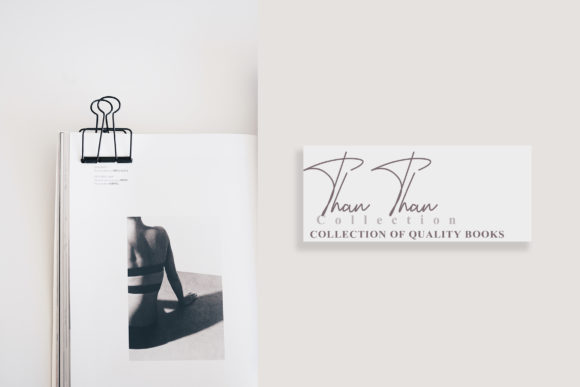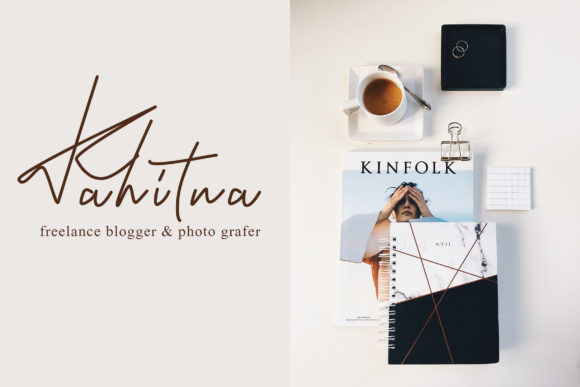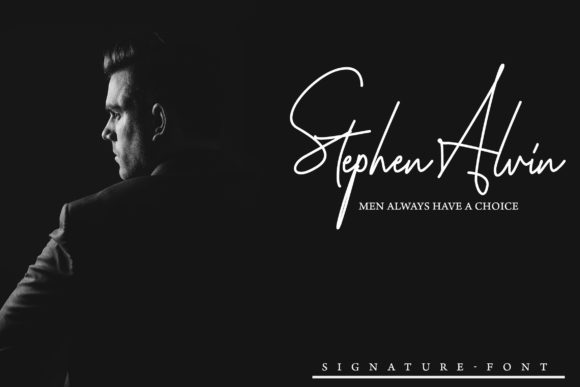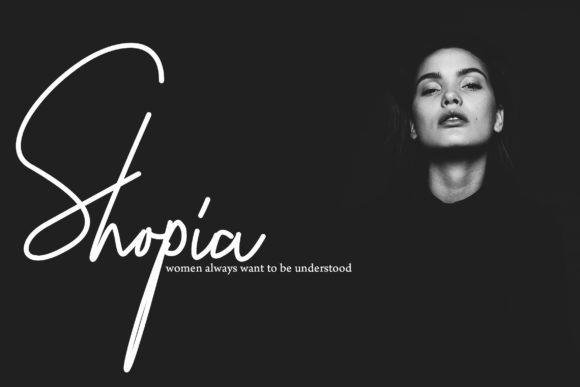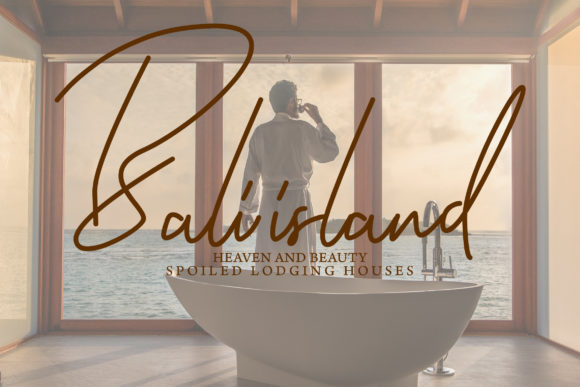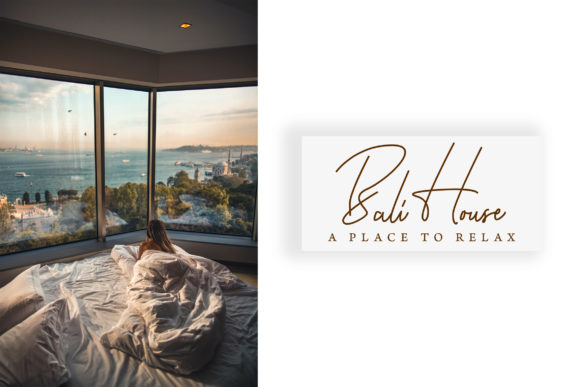
Aambalam Font: The Modern Handwritten Font with a Cool Charm
Are you tired of using the same old fonts in your designs? Look no further than the Aambalam Font, a modern and charming handwritten font that is sure to add a cool charm to your projects. With its 100% handwritten and incredibly cool style, Aambalam is the perfect choice for designers and crafters looking to add a personal touch to their work.
What is Aambalam Font?
Aambalam Font is a unique and stylish handwritten font that is designed to bring a touch of personality to your designs. With its modern and charming style, Aambalam is perfect for a wide range of projects, from branding and advertising to packaging and digital media. Whether you’re a professional designer or a crafty DIY enthusiast, Aambalam Font is sure to inspire your creativity and help you create stunning designs.
Features of Aambalam Font
So what makes Aambalam Font so special? Here are just a few of its key features:
• 100% Handwritten: Aambalam Font is a completely handwritten font, which means that every letter and character is unique and full of personality.
• Incredibly Cool: With its modern and charming style, Aambalam Font is sure to add a cool charm to your designs.
• Versatile: Aambalam Font is perfect for a wide range of projects, from formal and professional to casual and playful.
• Easily Readable: Despite its unique and stylish style, Aambalam Font is still easily readable, making it perfect for use in body text and other long-form content.
Uses for Aambalam Font
So what can you use Aambalam Font for? The possibilities are endless! Here are just a few ideas to get you started:
• Branding and Advertising: Use Aambalam Font to create eye-catching logos, ads, and marketing materials that are sure to stand out.
• Packaging: Add a personal touch to your product packaging with Aambalam Font, which is perfect for labels, tags, and other packaging materials.
• Digital Media: Use Aambalam Font to create stunning digital media, including social media graphics, blog posts, and website content.
• Crafting and DIY: Aambalam Font is also perfect for crafty DIY enthusiasts, who can use it to create handmade cards, invitations, and other paper crafts.
Why Choose Aambalam Font?
So why should you choose Aambalam Font for your next project? Here are just a few reasons:
• Unique and Stylish: Aambalam Font is a truly unique and stylish font that is sure to add a touch of personality to your designs.
• High-Quality: Aambalam Font is a high-quality font that is designed to deliver exceptional results, whether you’re working on a professional project or a personal DIY project.
In conclusion, Aambalam Font is a modern and charming handwritten font that is sure to add a cool charm to your designs. With its 100% handwritten and incredibly cool style, Aambalam is the perfect choice for designers and crafters looking to add a personal touch to their work. Whether you’re working on a professional project or a personal DIY project, Aambalam Font is sure to inspire your creativity and help you create stunning designs. So why wait? Download Aambalam Font today and start creating!